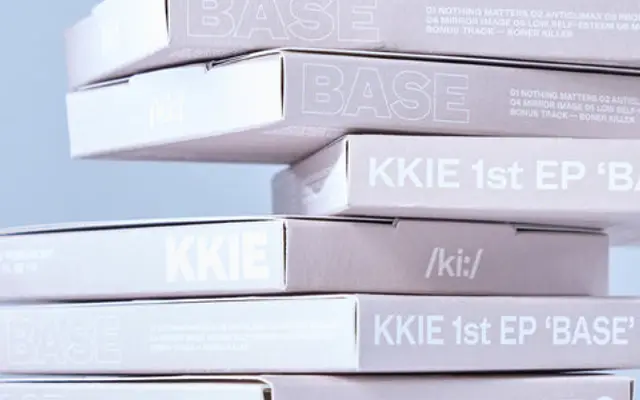
Mint Grotesk Display
Lift Type · Sébastien Sanfilippo · 2025
A high-contrast display grotesque in three widths and eight weights, optimised for large-scale use with a 19th-century eccentricity.
Mint Grotesk Display is the display-specific sibling of Mint Grotesk, sharing its eight-weight range from Thin to Heavy but tuned for headline and poster work through increased contrast and finer detail. The family spans three widths — standard, Narrow and Condensed — each with full italic coverage, giving 48 static styles in total plus variable font support. Multiple stylistic sets and a suite of figure variants add flexibility for editorial and typographic display work.
A display-optimised grotesque with 19th-century quirks and high contrast, designed for large-size use. The three-width family (Regular, Narrow, Condensed) places it firmly in the grotesque tradition with expressive, display-specific detailing.